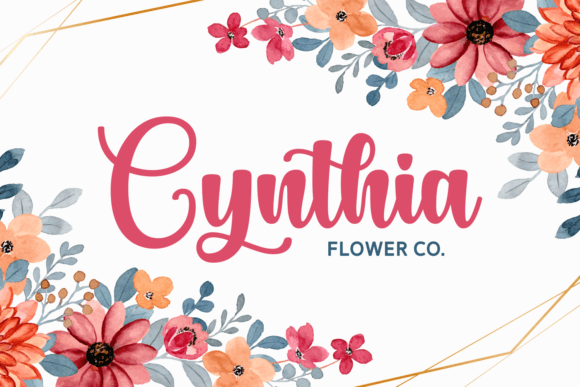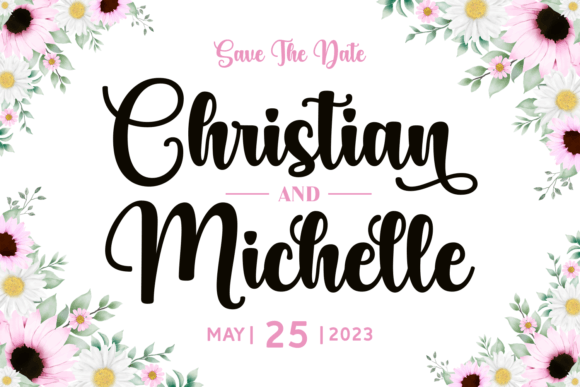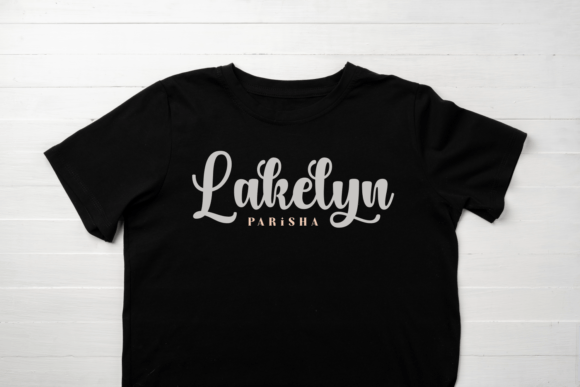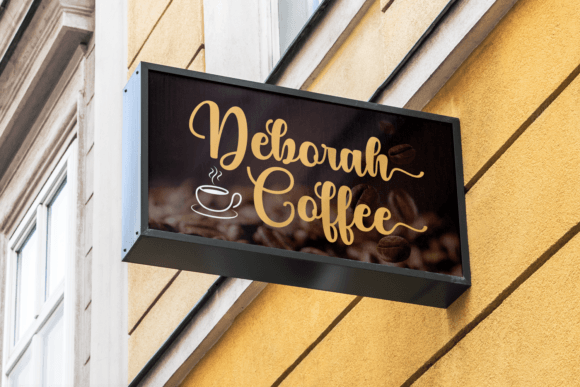
Introduction to Mintha Font Font
Fonts play a crucial role in design, and the Mintha Font font is a typeface that brings both character and versatility to any project. Whether you’re working on a branding project, a website, or a print design, the Mintha Font font offers a unique style that can elevate your work.
Mintha is a beautiful and charming script font.
Mintha is ideal for wedding invitations, greeting cards, and personal stationery, as it adds a heartfelt touch to any project Its elegant yet approachable style ensures readability while conveying a sense of intimacy and sweetness, making it a delightful choice for any romantic design endeavor.
The Mintha Font font is more than just a typeface – it’s a design tool that helps you communicate your message with style and clarity. Its unique character set and versatile design make it suitable for a wide range of applications, from elegant invitations to bold headlines.
With its carefully crafted letterforms and balanced proportions, the Mintha Font font ensures readability and visual appeal across all mediums.
The Mintha Font font stands out with its unique design, exceptional readability, and versatility across various design applications.